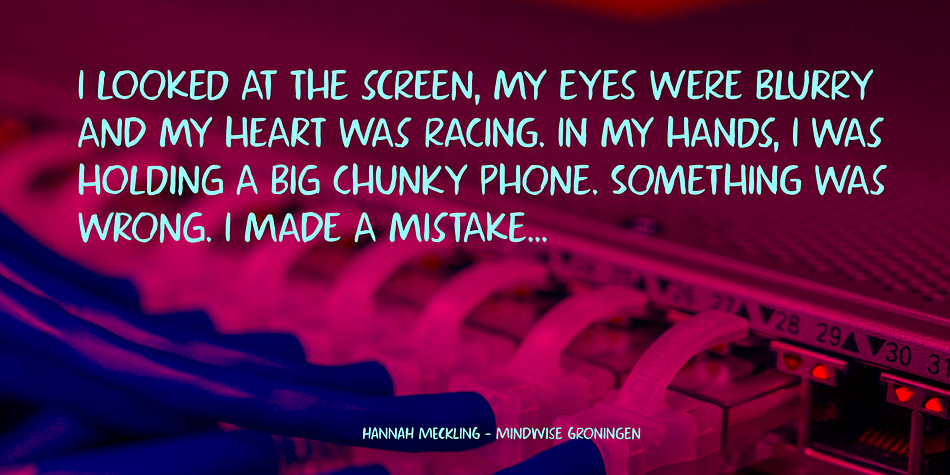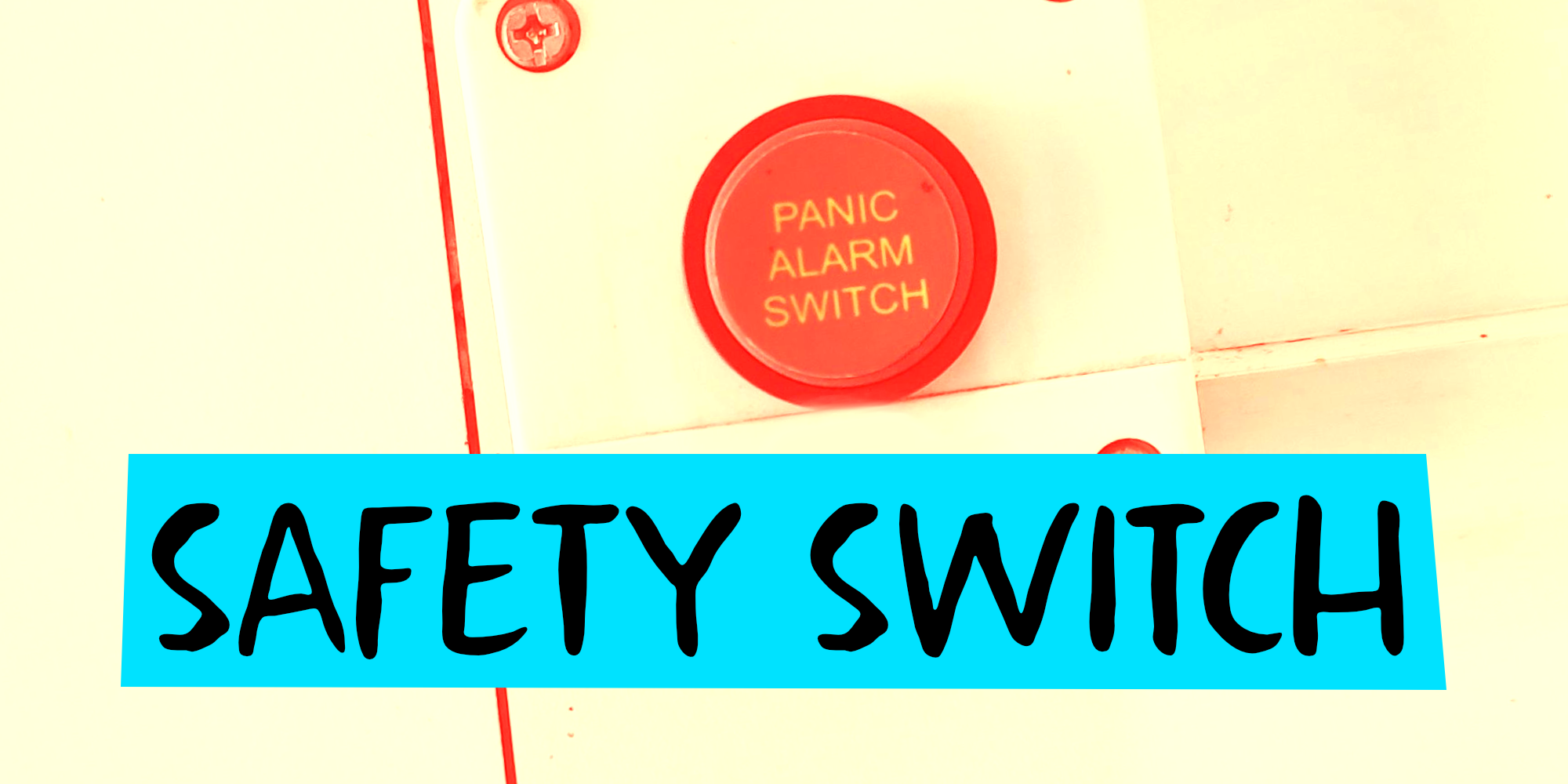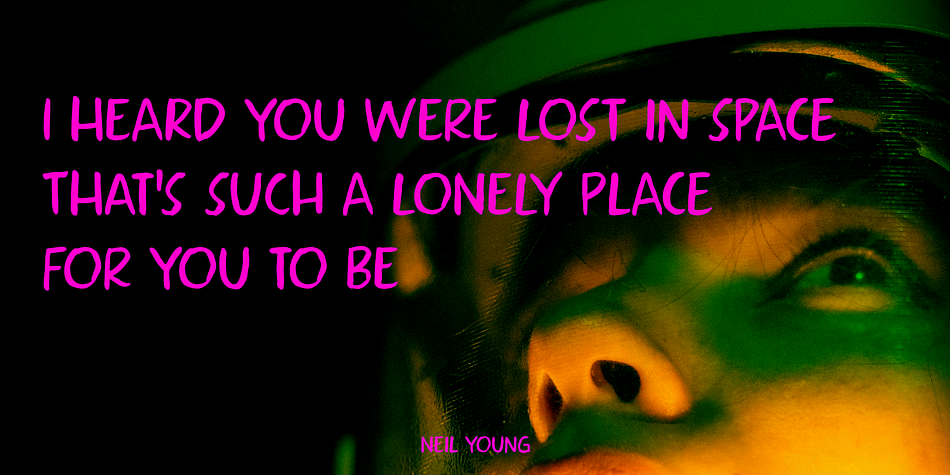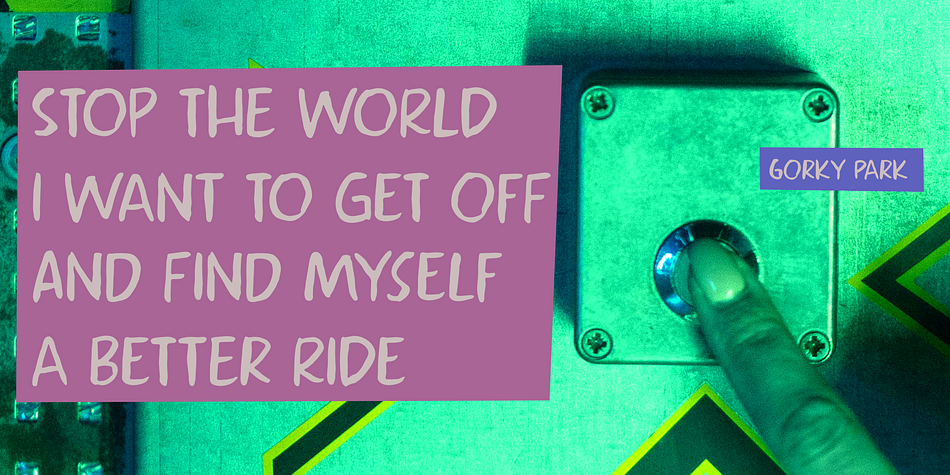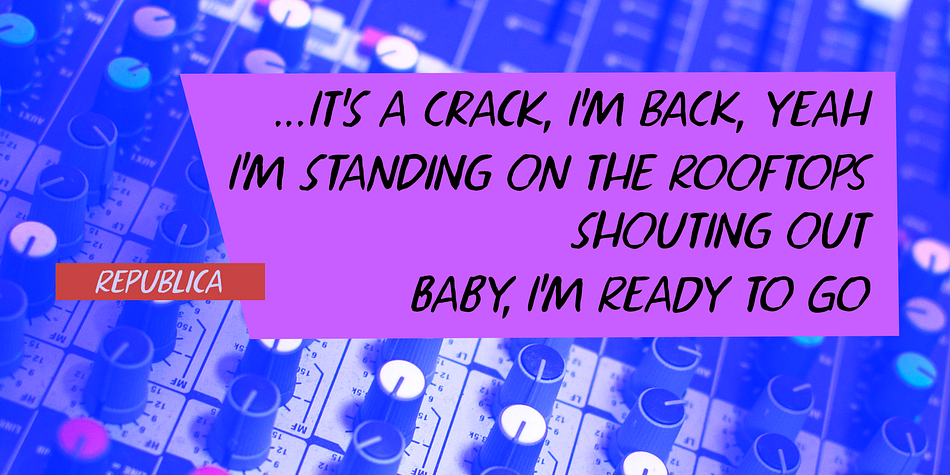
Safety Switch
Safety Switch is a brush display font family. This typeface has two styles and was published by Kitchen Table Type Foundry.
I am not entirely sure why I called this font Safety Switch. Maybe it is because I am renovating a ’30’s house and the Safety Switch has kept me from harm a couple of times!
Safety Switch is a nice, handmade font. It was created using a thin brush and Chinese ink. It comes with extensive language support and a set of contextual alternates.